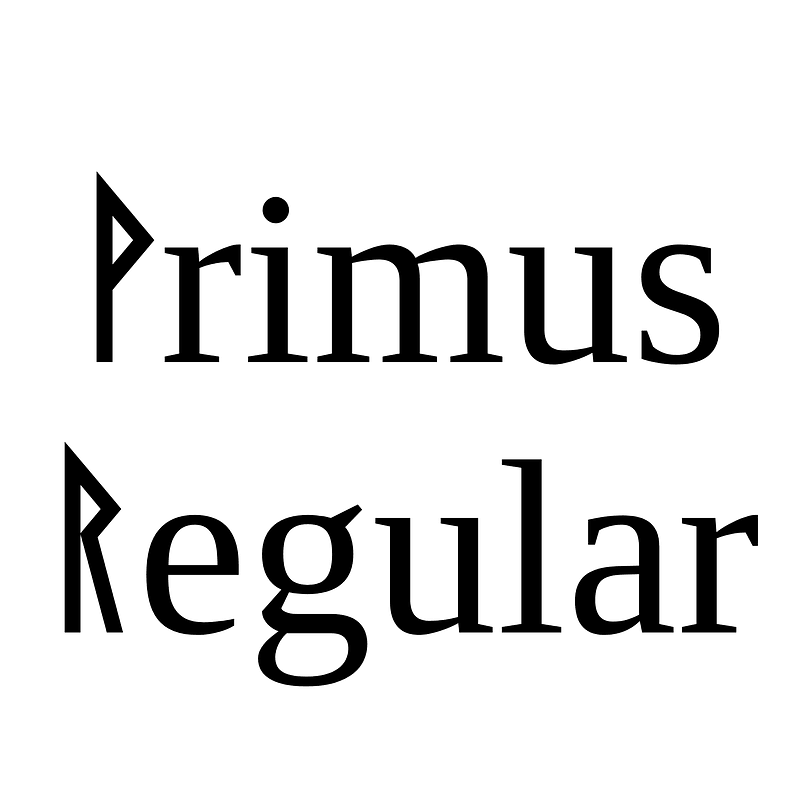
What Is Primus Font . Primus is a font inspired from a nearly 60 page book of runes called the liber primus, discovered at the end of the 2014 version of the cicada 3301 puzzle which remains. Primus has been designed to express the feelings of future, science and innovativeness while being simple and clean. Upload an image or paste an image url to identify fonts by image. Primus has been designed to express the feelings of future, science and innovativeness while being simple and clean. Whatthefont uses deep learning to search over 133,000 fonts and find the best match for your text. Primus, from artegra, has been designed to express the feelings of future, science and innovativeness while being simple and clean. Thousands of designers (famous or not) use the image font detection system to find a font or similar free fonts from an image. It’s a geometric typeface with.
Primus has been designed to express the feelings of future, science and innovativeness while being simple and clean. Whatthefont uses deep learning to search over 133,000 fonts and find the best match for your text. Upload an image or paste an image url to identify fonts by image. Primus, from artegra, has been designed to express the feelings of future, science and innovativeness while being simple and clean. It’s a geometric typeface with. Primus is a font inspired from a nearly 60 page book of runes called the liber primus, discovered at the end of the 2014 version of the cicada 3301 puzzle which remains. Primus has been designed to express the feelings of future, science and innovativeness while being simple and clean. Thousands of designers (famous or not) use the image font detection system to find a font or similar free fonts from an image.
What Is Primus Font Primus is a font inspired from a nearly 60 page book of runes called the liber primus, discovered at the end of the 2014 version of the cicada 3301 puzzle which remains. Primus, from artegra, has been designed to express the feelings of future, science and innovativeness while being simple and clean. Whatthefont uses deep learning to search over 133,000 fonts and find the best match for your text. Primus is a font inspired from a nearly 60 page book of runes called the liber primus, discovered at the end of the 2014 version of the cicada 3301 puzzle which remains. It’s a geometric typeface with. Primus has been designed to express the feelings of future, science and innovativeness while being simple and clean. Thousands of designers (famous or not) use the image font detection system to find a font or similar free fonts from an image. Upload an image or paste an image url to identify fonts by image. Primus has been designed to express the feelings of future, science and innovativeness while being simple and clean.
Primus Font Family & Free Font on Behance What Is Primus Font It’s a geometric typeface with. Whatthefont uses deep learning to search over 133,000 fonts and find the best match for your text. Primus has been designed to express the feelings of future, science and innovativeness while being simple and clean. Primus is a font inspired from a nearly 60 page book of runes called the liber primus, discovered at the. What Is Primus Font.
Primus Font Family & Free Font on Behance What Is Primus Font Thousands of designers (famous or not) use the image font detection system to find a font or similar free fonts from an image. It’s a geometric typeface with. Upload an image or paste an image url to identify fonts by image. Primus has been designed to express the feelings of future, science and innovativeness while being simple and clean. Primus. What Is Primus Font.
Primus Fonts Shmonts What Is Primus Font It’s a geometric typeface with. Whatthefont uses deep learning to search over 133,000 fonts and find the best match for your text. Primus has been designed to express the feelings of future, science and innovativeness while being simple and clean. Thousands of designers (famous or not) use the image font detection system to find a font or similar free fonts. What Is Primus Font.
Primus Script Font What Is Primus Font It’s a geometric typeface with. Whatthefont uses deep learning to search over 133,000 fonts and find the best match for your text. Primus has been designed to express the feelings of future, science and innovativeness while being simple and clean. Upload an image or paste an image url to identify fonts by image. Thousands of designers (famous or not) use. What Is Primus Font.
Primus Script Regular truetype font What Is Primus Font Primus has been designed to express the feelings of future, science and innovativeness while being simple and clean. Whatthefont uses deep learning to search over 133,000 fonts and find the best match for your text. Primus, from artegra, has been designed to express the feelings of future, science and innovativeness while being simple and clean. Thousands of designers (famous or. What Is Primus Font.
Primus Script Font Download Fonts4Free What Is Primus Font Upload an image or paste an image url to identify fonts by image. Whatthefont uses deep learning to search over 133,000 fonts and find the best match for your text. It’s a geometric typeface with. Thousands of designers (famous or not) use the image font detection system to find a font or similar free fonts from an image. Primus, from. What Is Primus Font.
Primus font What Is Primus Font Thousands of designers (famous or not) use the image font detection system to find a font or similar free fonts from an image. Primus, from artegra, has been designed to express the feelings of future, science and innovativeness while being simple and clean. Primus has been designed to express the feelings of future, science and innovativeness while being simple and. What Is Primus Font.
Primus Font Family & Free Font on Behance What Is Primus Font Primus has been designed to express the feelings of future, science and innovativeness while being simple and clean. Primus is a font inspired from a nearly 60 page book of runes called the liber primus, discovered at the end of the 2014 version of the cicada 3301 puzzle which remains. It’s a geometric typeface with. Primus, from artegra, has been. What Is Primus Font.
Primus Font unusuallysaad FontSpace What Is Primus Font Primus has been designed to express the feelings of future, science and innovativeness while being simple and clean. Whatthefont uses deep learning to search over 133,000 fonts and find the best match for your text. Thousands of designers (famous or not) use the image font detection system to find a font or similar free fonts from an image. Primus has. What Is Primus Font.